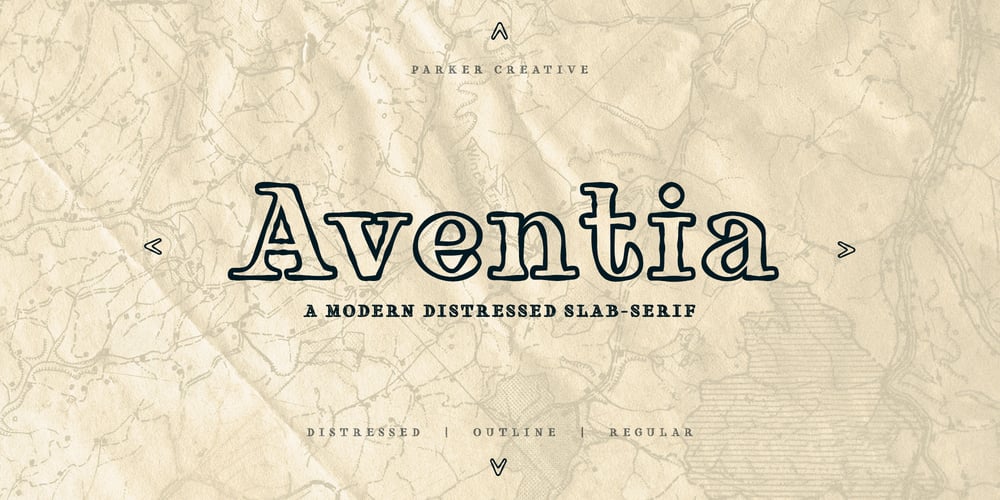
Aventia Serif Font Family was designed by Alan Parker and published by Parker Creative. Aventia Serif contains 3 styles and family package options. Introducing Aventia, a modern distressed slab serif. Inspired by classic medieval maps, Aventia combines the vintage look of those old maps with modern distressing and font outline styling. With thick serifs and rough edges, Aventia is a great choice bold, adventurous design, not to mention modern map design!An expanded multilingual character set + symbols is included!Three variations of Aventia are available: Regular, Distressed, and Outline.